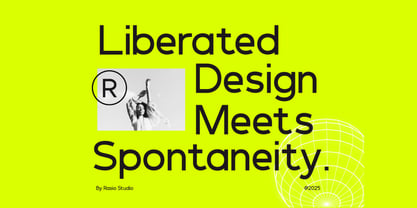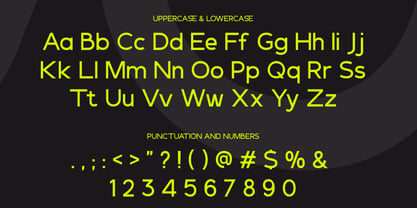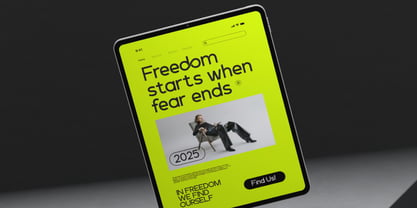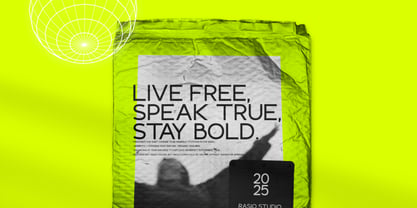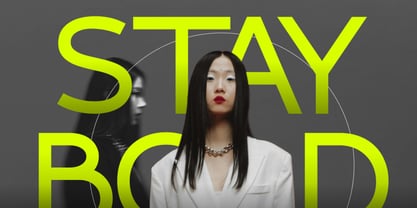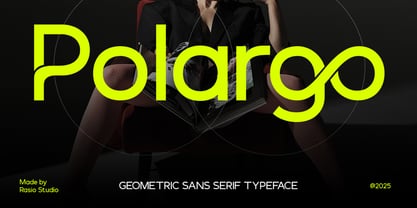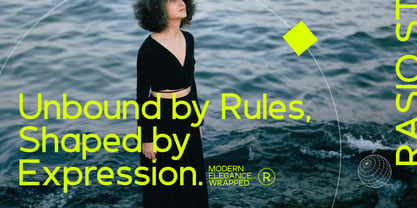
Polargo
by Rasio Studio
The Polargo Font Family was designed by Fajar Indra and published by Rasio Studio. Polargo contains 1 styles. More about this family
Polargo is a bold geometric sans serif typeface built with clean construction, circular forms, and balanced proportions for a strong contemporary presence. The design features smooth curves, consistent stroke weight, and precise spacing that deliver sharp legibility across both large headlines and modern layouts. Relevance and Use Cases is perfect for tech startups, corporate branding, UI and UX design, presentations, posters, social media graphics, editorial layouts, product campaigns, and modern marketing materials that require a bold, clean, and professional visual tone.
Designers: Fajar Indra
Current Foundry: Rasio Studio